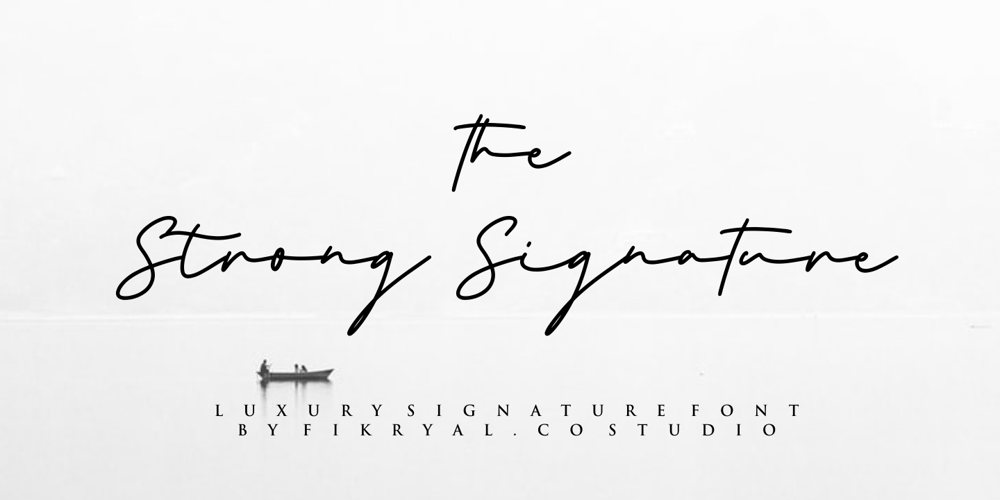
The Strong Signature
The Strong Signature font
The Strong Signature Font Family was designed by Muhammad Fikry and published by Fikryal. The Strong Signature contains 1 styles and family package options. The Strong Signature is a beautiful Signature font perfect for crafting, branding, invitation, stationery, wedding designs, social media posts, advertisements, product packaging, product designs, label, photography, watermark, special events or anything.The Strong Signature comes with full set of uppercase and lowercase letters, ligatures, multilingual symbols, numerals and punctuation.